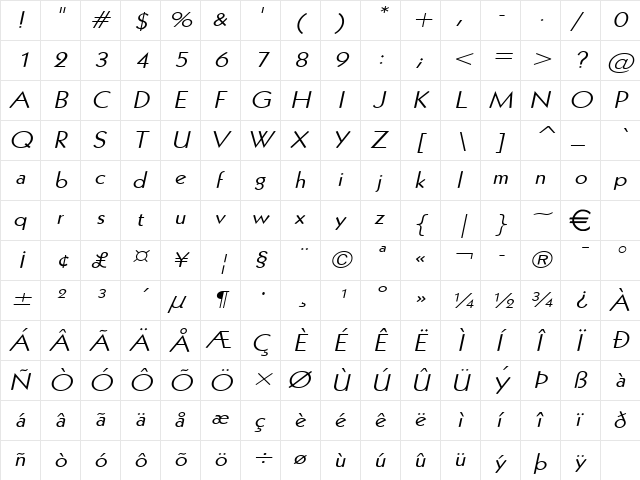
Geo112Wide Italic Font Preview
Geo112Wide Italic
Geo112Wide Italic Font Details
Design Context for Geo112Wide Typeface
Geo112Wide offers clean, dependable letterforms without strong stylistic allegiance, making it a practical choice for designers who need flexibility. The slanted form adds forward momentum and visual energy.